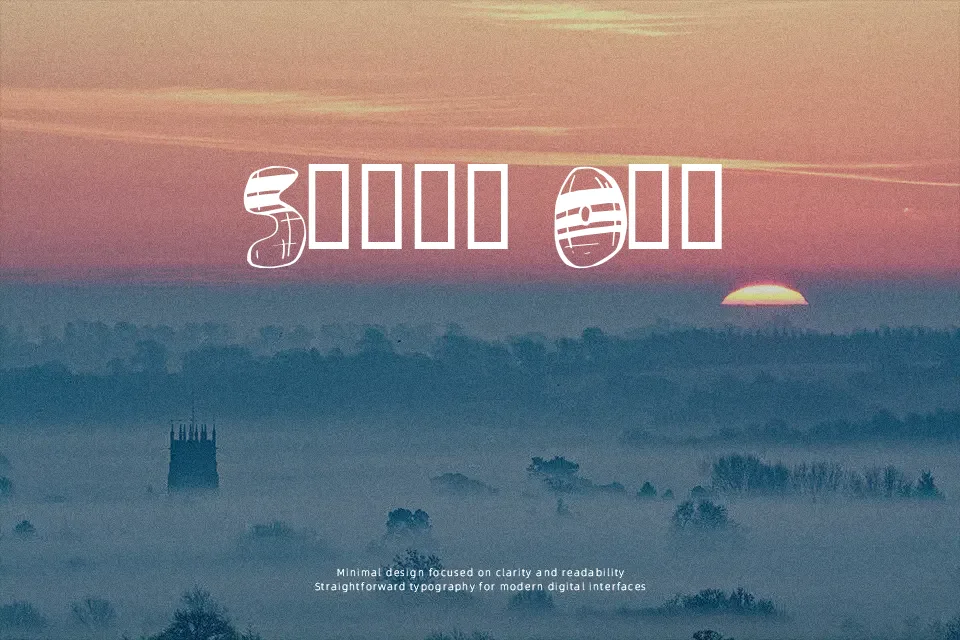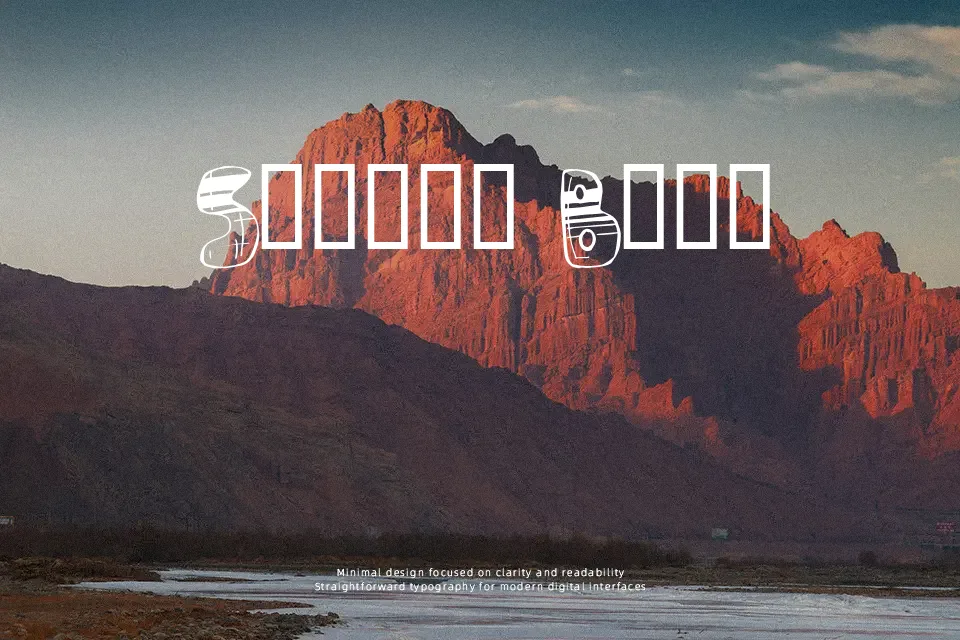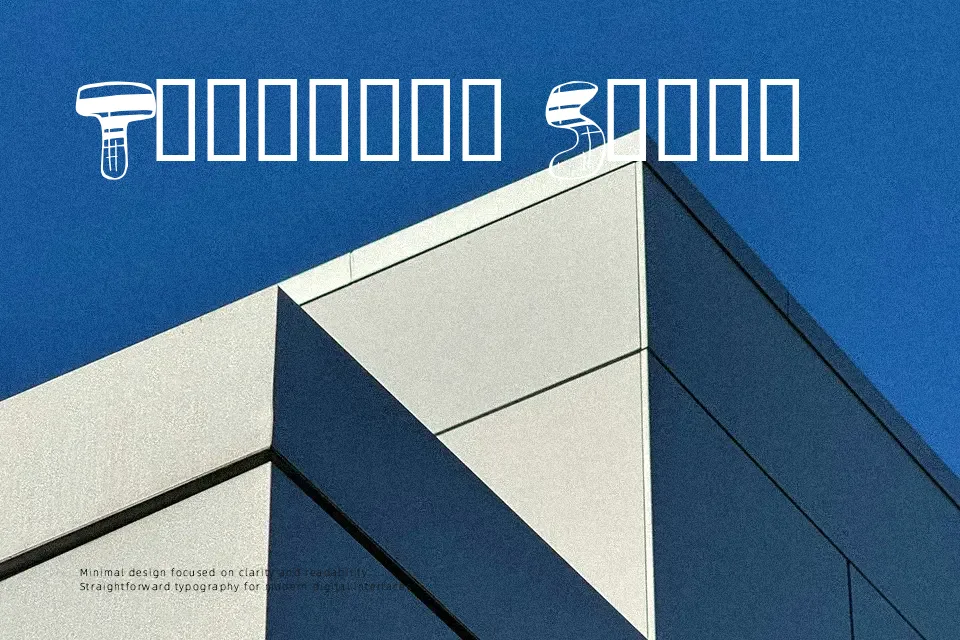
Adrenochrome Font
Designed by Spork Thug Typography
The letterforms here are deliberately unsettling — irregular strokes, uneven baseline tension, and a structure that feels like it was carved under pressure rather than designed. That controlled chaos gives it genuine atmosphere for horror posters, metal band merchandise, or Halloween event graphics. At smaller sizes, legibility drops off quickly, so it’s not a font you’d use for body copy or anything requiring quick readability. Where it earns its place is in large headline applications where the distorted character shapes can breathe and unsettling mood is a feature, not a flaw. If you’ve worked with fonts like Bleeding Cowboys or similar dark display faces, the intent is comparable — raw visual aggression over refinement.
– Horror film or Halloween event poster headlines
– Metal or punk band album artwork and merch
– Dark-themed social media graphics
– Tattoo-style logo concepts
– Body text or any extended reading context
– Corporate or professional branding
– Small print applications like business cards
– Designs requiring multilingual character support
Perfect for halloween, logo, and music, with a bold and decorative style.